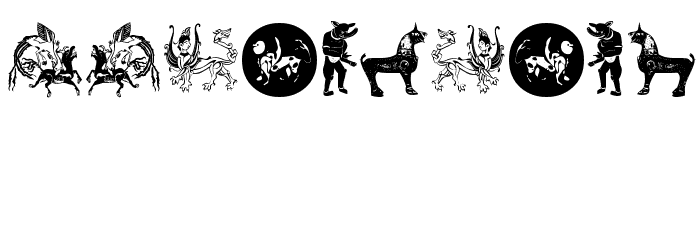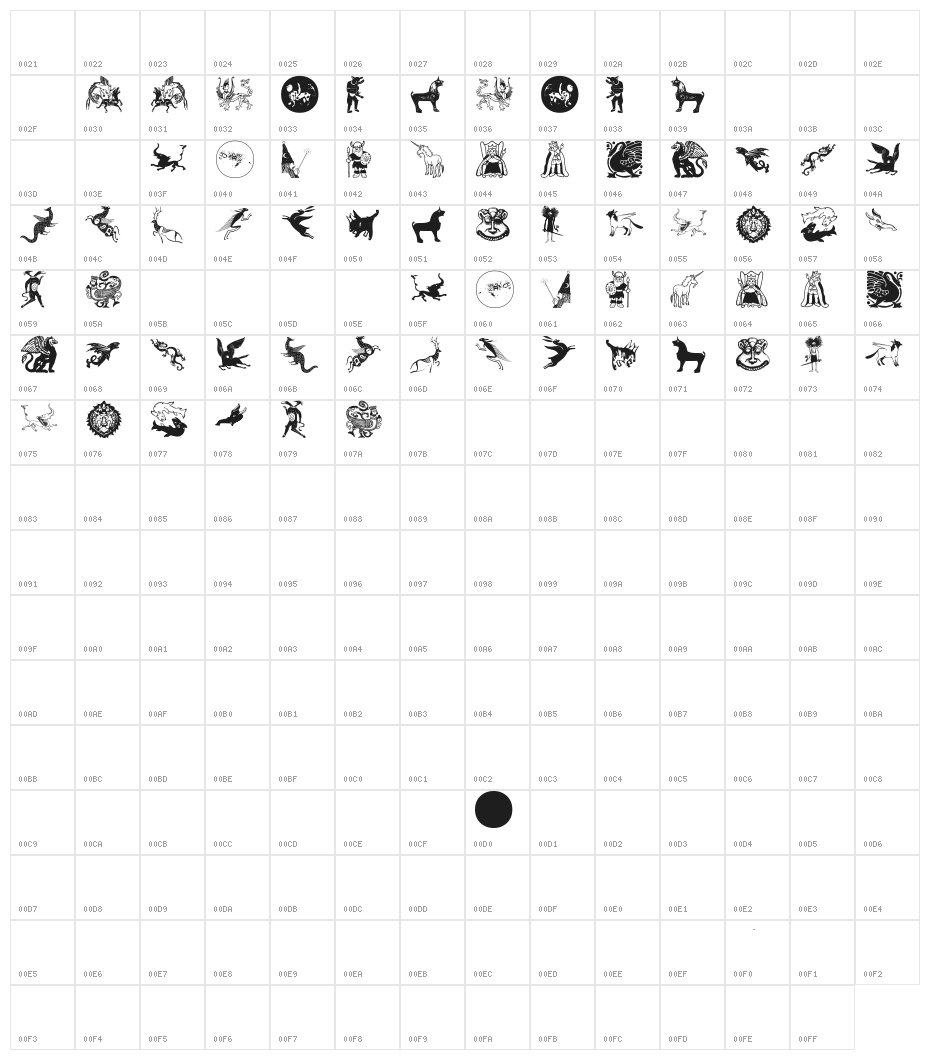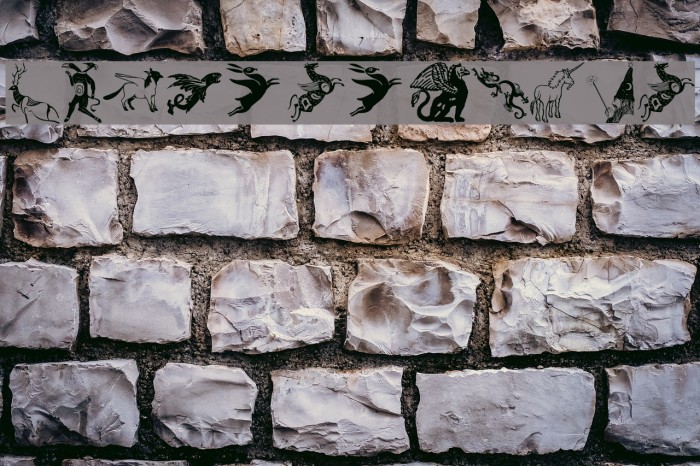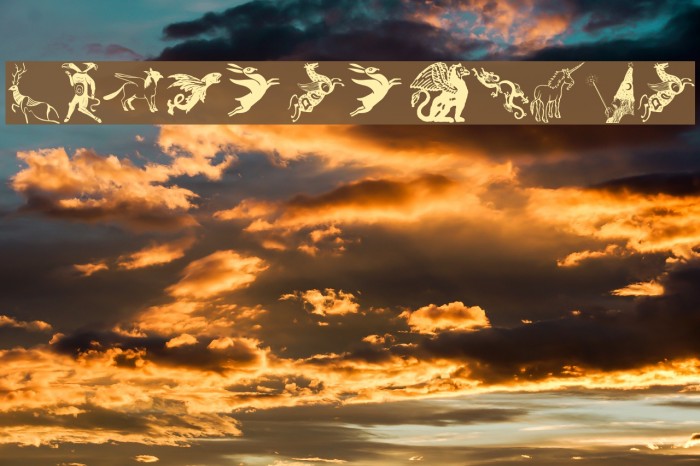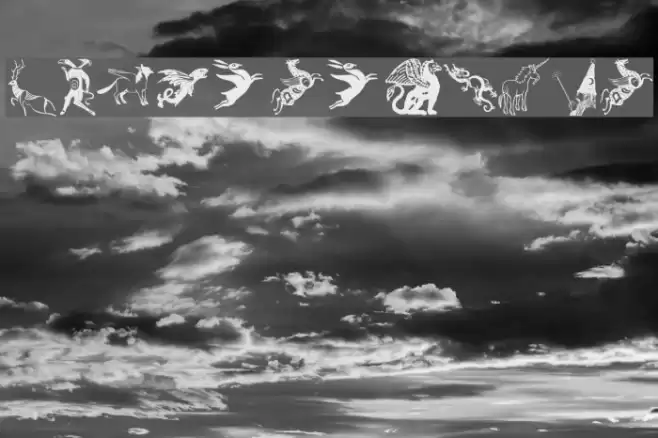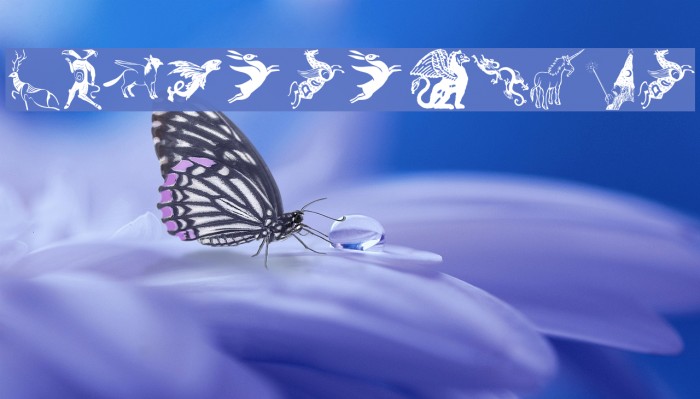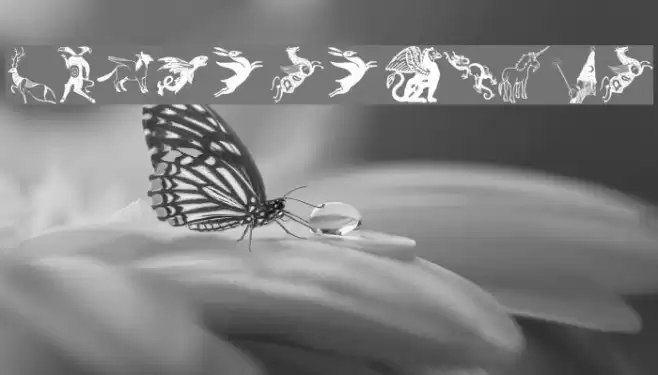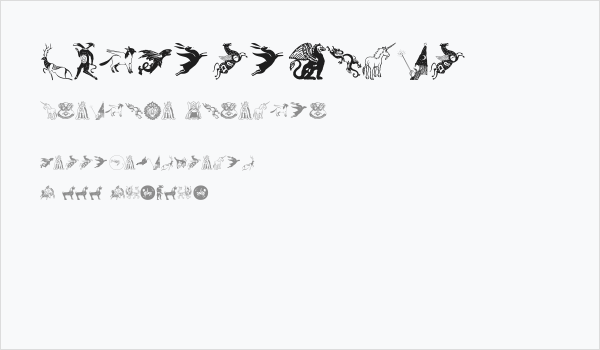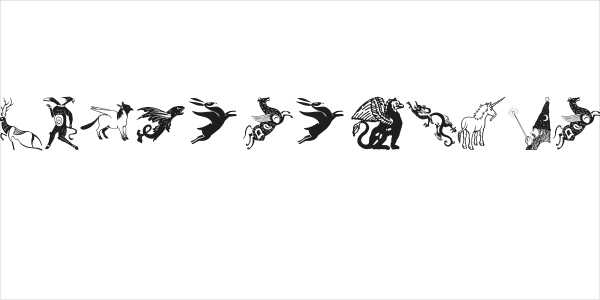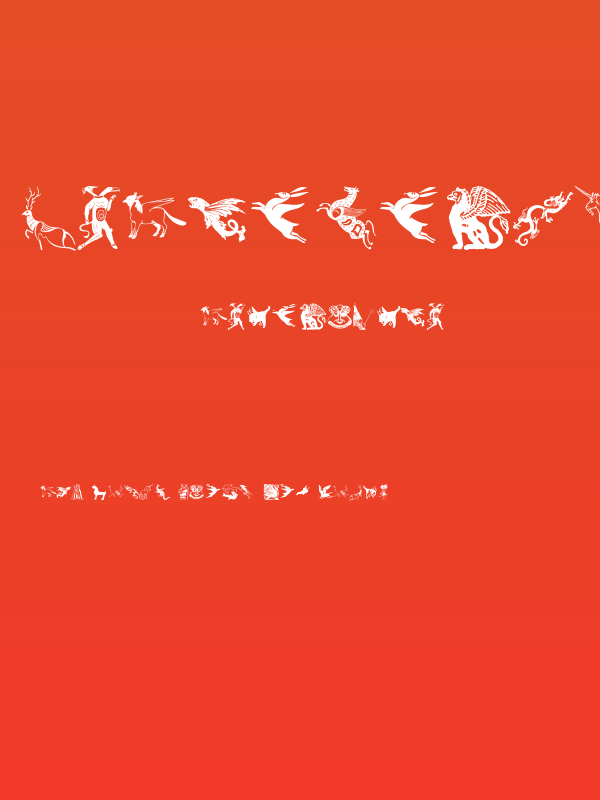
Mythological Font
Mythological Description
A highly decorative font composed of intricate mythological and fantasy-inspired illustrations, featuring a variety of legendary creatures, gods, and ornate motifs in black and white. Each character is represented by a unique, detailed pictogram rather than traditional letterforms.
| Overall Style | Decorative, Fantasy, Mythological |
| Use Case | Logos, Headlines, Posters, Themed artwork |
| Proposed Projects | Book covers, fantasy game titles, event posters, decorative initials, themed branding, art projects. |